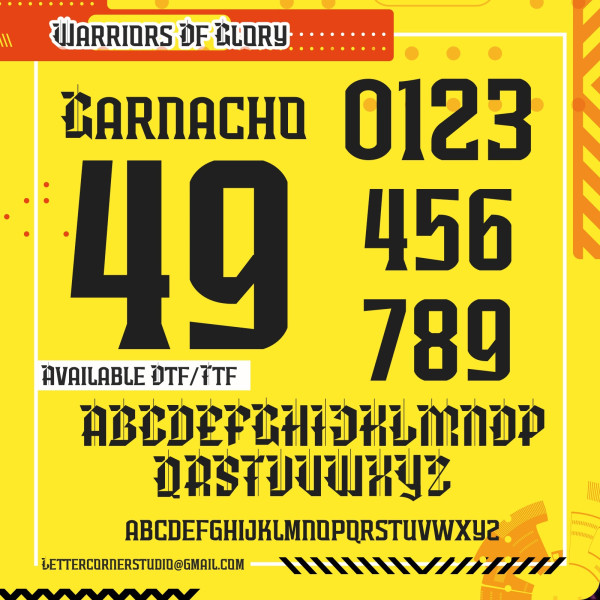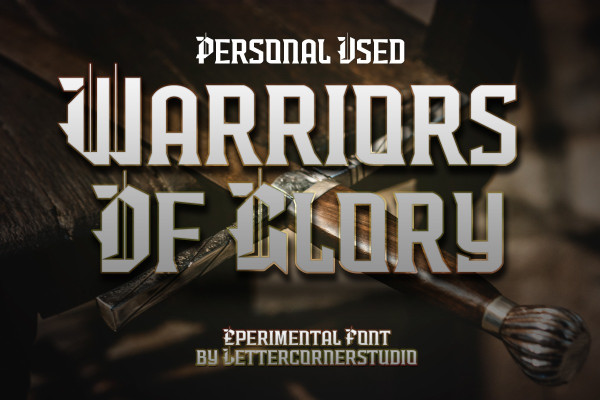
Warriors Of Glory Font
Warriors Of Glory Font, This bundle features strong, confident and powerful typefaces designed to work great with sports logos, club branding, apparel applications, labels and more.